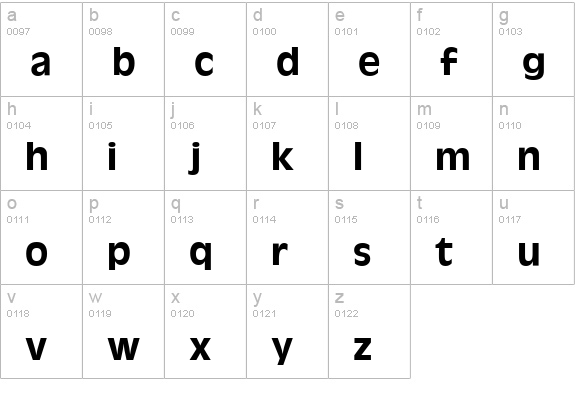
Antigone-Medium-Regular is a balanced, medium-weight variant in the Antigone typeface family \xE2\x80\x94 well suited to sub-headlines, navigation, and balanced editorial work.
Antigone-Medium-Regular font is a classic and elegant typeface that exudes sophistication and timelessness. Its medium weight strikes the perfect balance between readability and style, making it suitable for a wide range of design projects. Whether used for body text or headlines, Antigone-Medium-Regular adds a touch of refinement to any layout. What sets Antigone-Medium-Regular apart is that it is available for free download at FontsMarket.com. This makes it accessible to designers, creatives, and enthusiasts looking to elevate their work without breaking the bank. With its clean lines and versatile design, Antigone-Medium-Regular is a valuable addition to any font collection. Download it today and bring a touch of elegance to your projects.